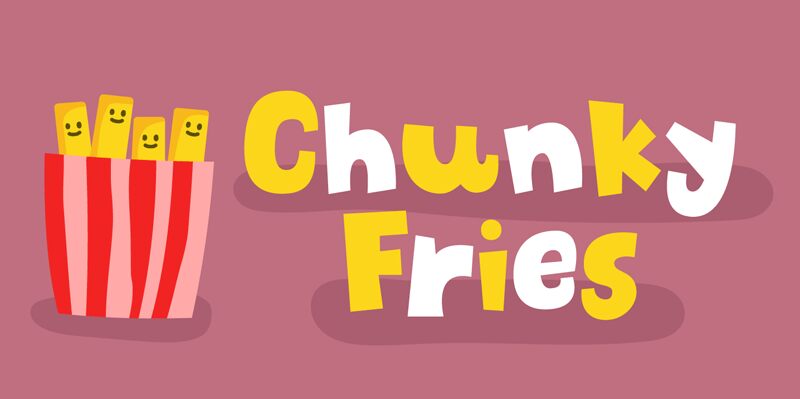
Chunky Fries by Pizzadude is a playful and eye-catching display font that's perfect for a variety of projects that require a touch of fun and whimsy. With an extra-bold weight and a cartoon style, this typeface is ideal for creating bold headlines, titles, or logos that demand attention. Its chunky shape and quirky design make it suitable for children's books, food packaging, restaurant menus, party invitations or even video game titles. So if you're looking to add some personality to your next project with a font that's both bold and playful, look no further than Chunky Fries!